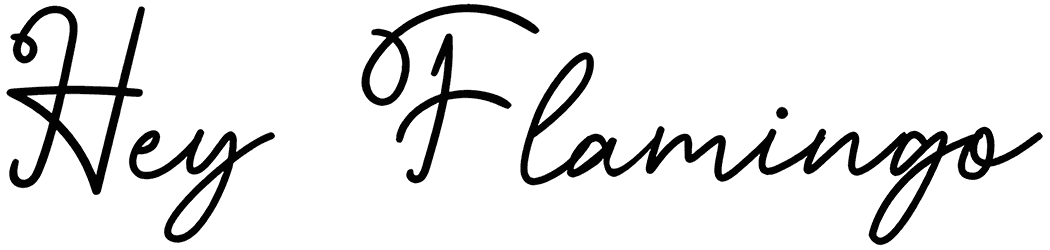
Hey Flamingo Font
Using curvy lettering can always create an eye-catching face for your presentation, and this handwritten font has such a style. The Hey Flamingo font can add a touch of a delicate vibe to your words. Test this neon font for your beach restaurant sign, or any project that you want, and impress your viewers.
Hey Flamingo is a flowing handwritten font, described by an elegant touch, perfect for your favorite projects. Fall in love with its incredibly distinct and timeless style and use it to create spectacular designs!